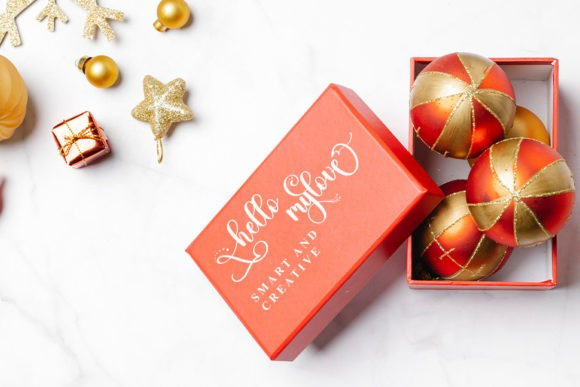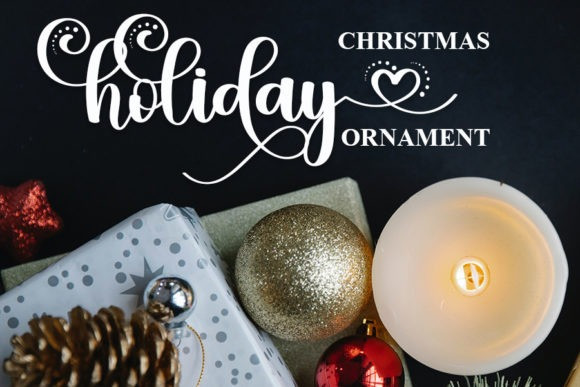
Amellda Font
Amellda Font, is an enchanting script font. It will add a luxury spark to any design project that you wish to create! This font is PUA encoded which means you can access all of the amazing glyphs and ligatures with ease!